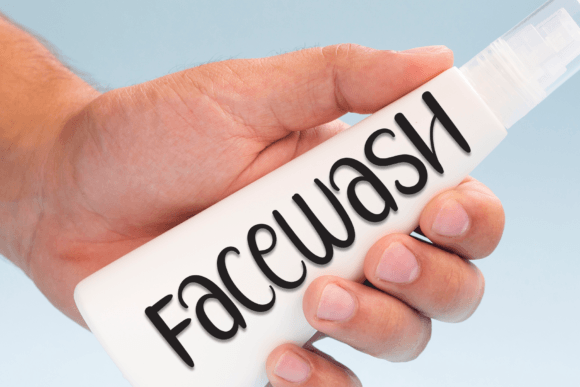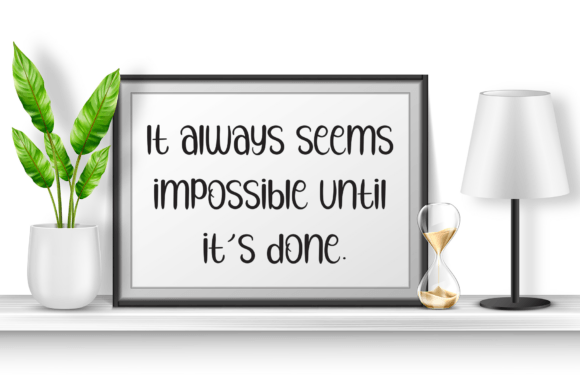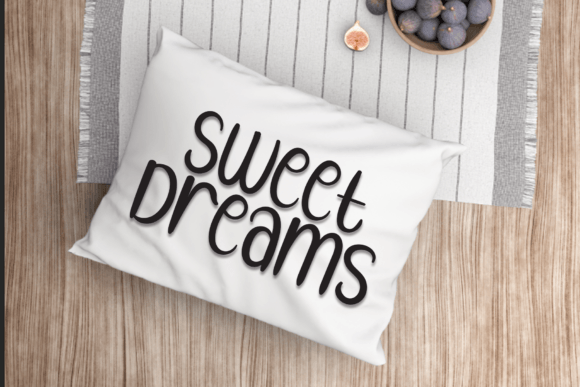
Introduction to Santa Fantastic Font
As a designer, have you ever found yourself rummaging through your font collection, searching for that perfect combination of whimsy and charm to elevate your latest creative project? I know I have. And that’s exactly what led me to the Santa Fantastic Font – a delightful, handwritten display font that brings an effortless charm to any design endeavor.
This enchanting font is a game-changer for designers, offering a high-quality, free download that’s perfect for wedding invitations, greeting cards, or any project that requires a lighthearted, playful touch. With its transparent background and simplistic beauty, the Santa Fantastic Font adds a touch of warmth and happiness to every stroke, making it a valuable addition to any design toolkit.
Whether you’re working on a creative project or simply need a fun, sprightly font to add some personality to your written communication, the Santa Fantastic Font is an absolute must-have. So, let’s dive in and explore the magic of this captivating font together!
Key Features of Santa Fantastic Font
- Unique, playful design ideal for creative projects and holiday-themed graphics
- Designed to be scalable, suitable for use in various sizes and resolutions, including 72 dpi and 300 dpi
- Comes in a range of weights and styles, allowing for flexibility in creative project design
- Perfect for use in graphic design, digital art, and other creative endeavors, including print and web design
Honest Review: Santa Fantastic Font
I recently came across the Santa Fantastic Font, and I’m excited to share my honest thoughts on this design resource. As a designer, I’m always on the lookout for high-quality fonts that can elevate my creative projects.
- Unique and festive design that’s perfect for holiday-themed projects
- Only available in a limited number of weights and styles
The Santa Fantastic Font is a high-quality design resource perfect for creative projects. With its transparent background, it can be easily integrated into various design tools.
Tips for Getting the Most Out of Santa Fantastic Font
Experiment with different font sizes, colors, and combinations to create unique and visually appealing designs.
The Santa Fantastic Font is ideal for holiday-themed projects, such as Christmas cards, gift tags, and party invitations.